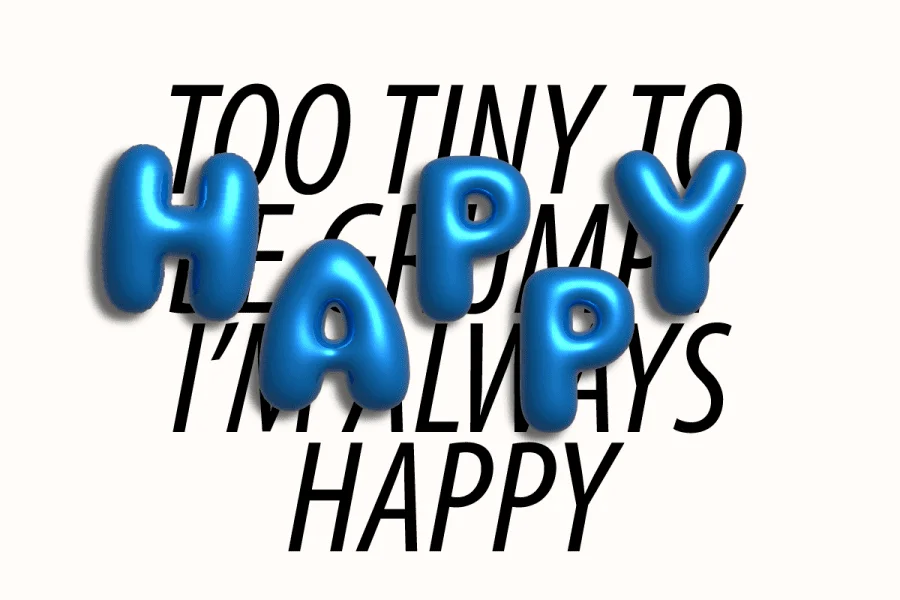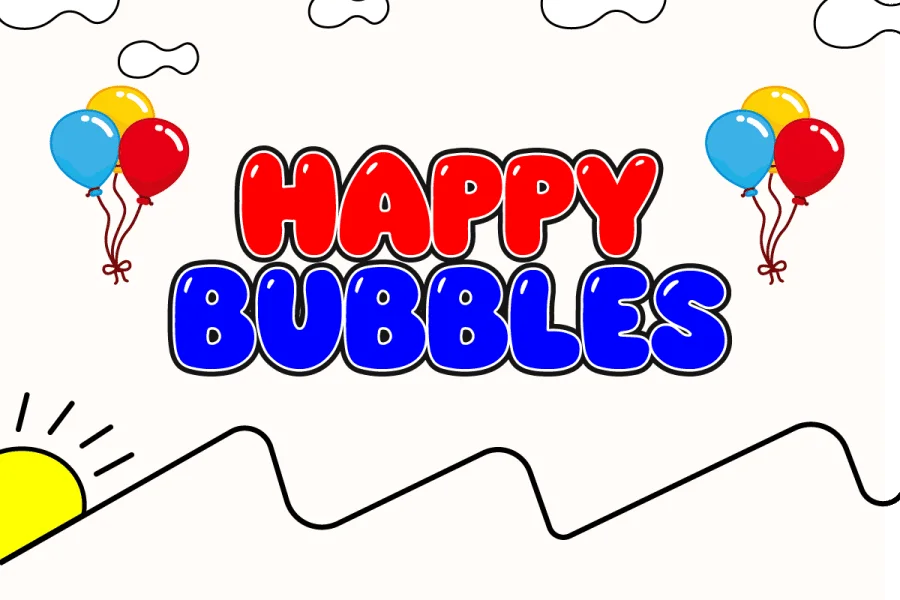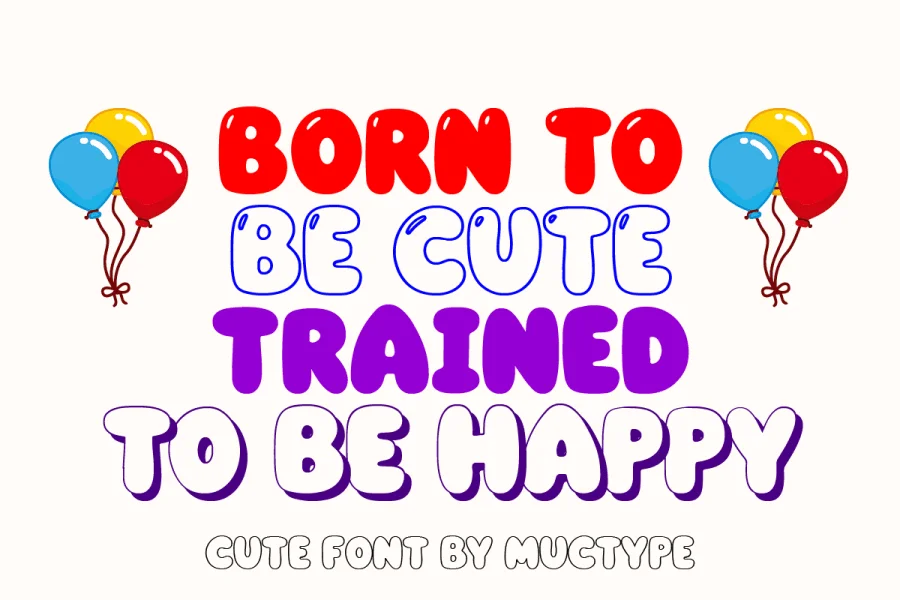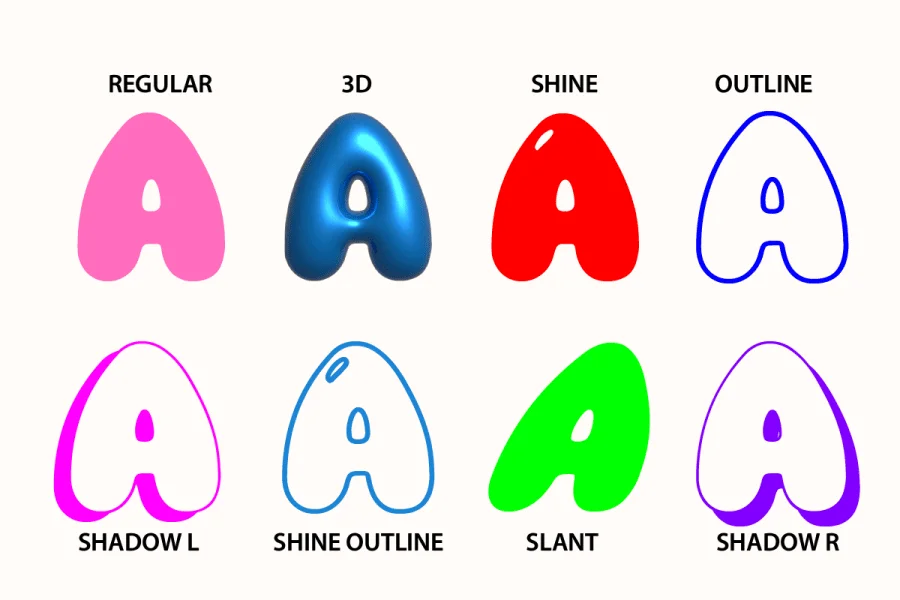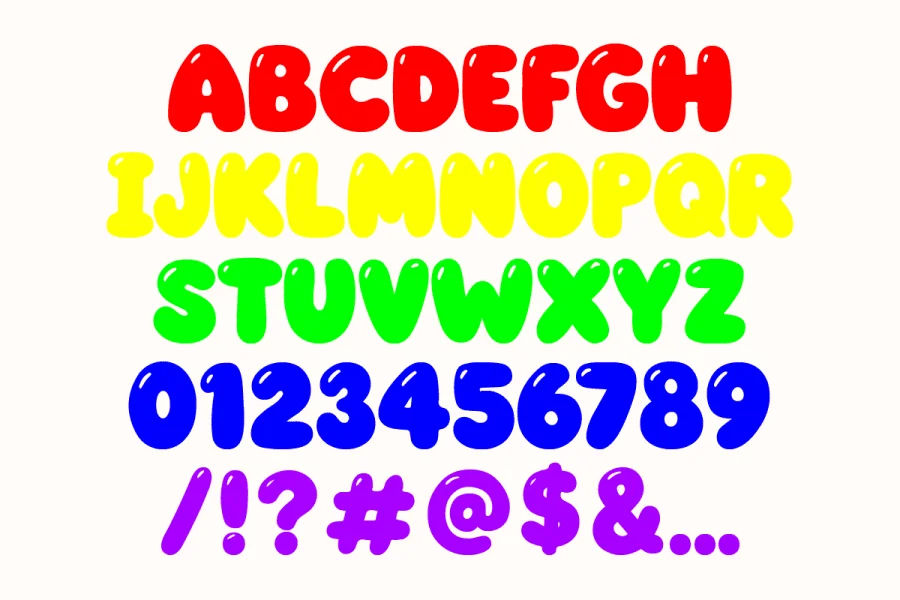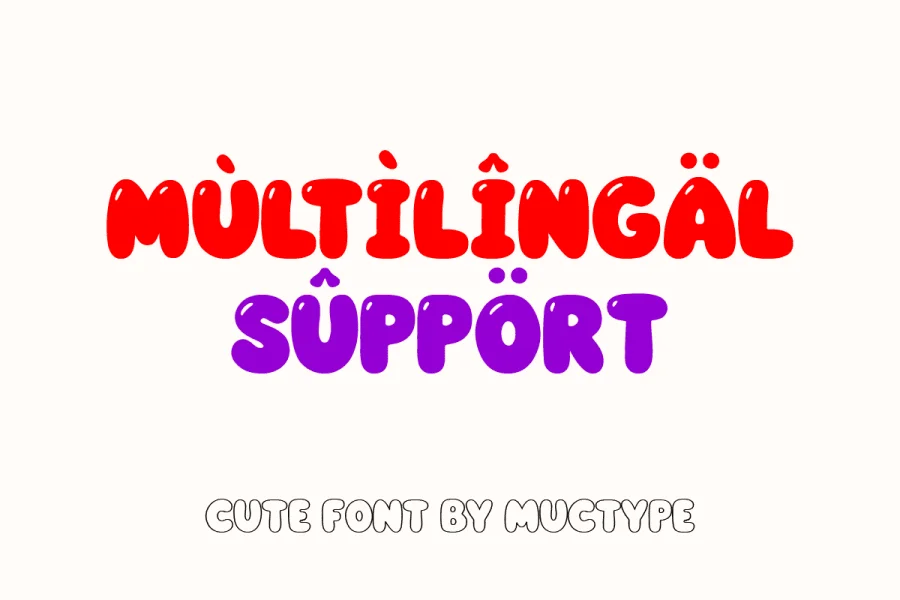
Guby Bambam Bubble Family Font - This font would be perfect for photography, watermarks, social media posts, advertisements, logos & branding, invitations, product design, labels, stationery, product packaging, special events, and other projects. This font is PUA encoded which means you can access all glyphs with ease!